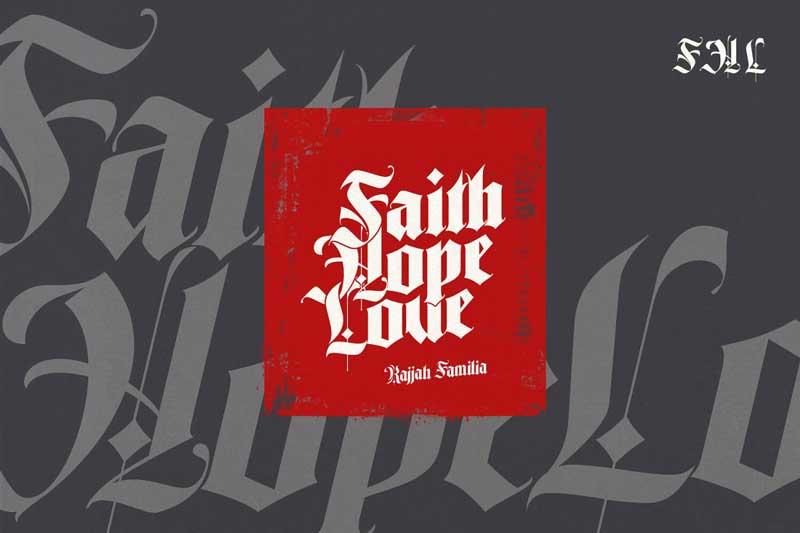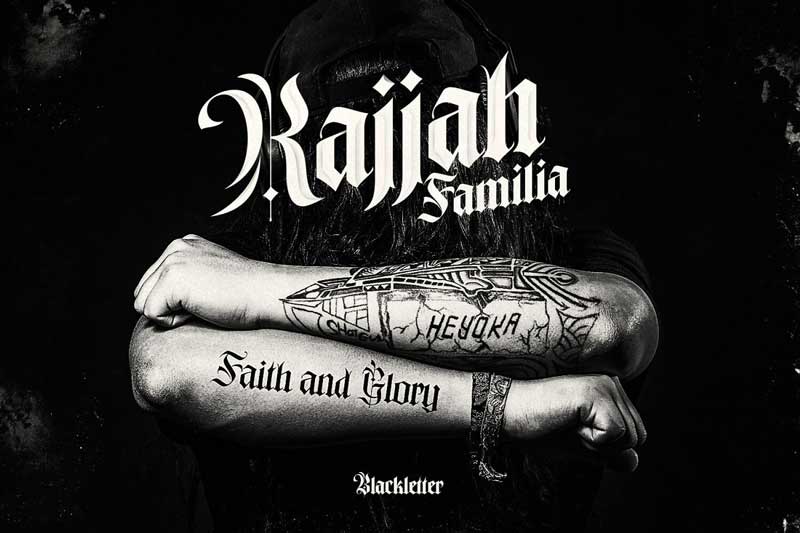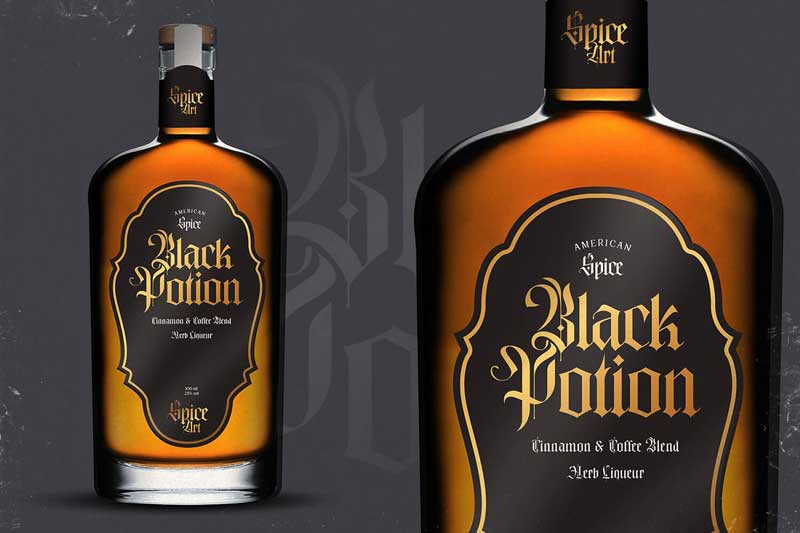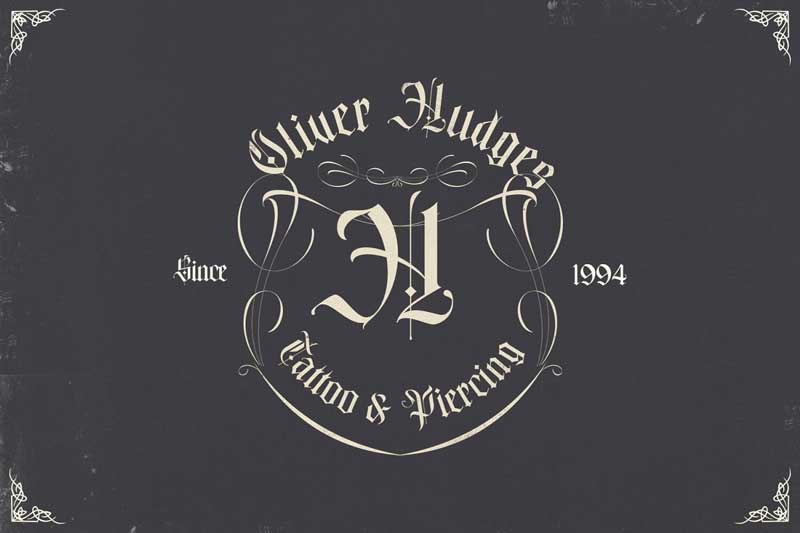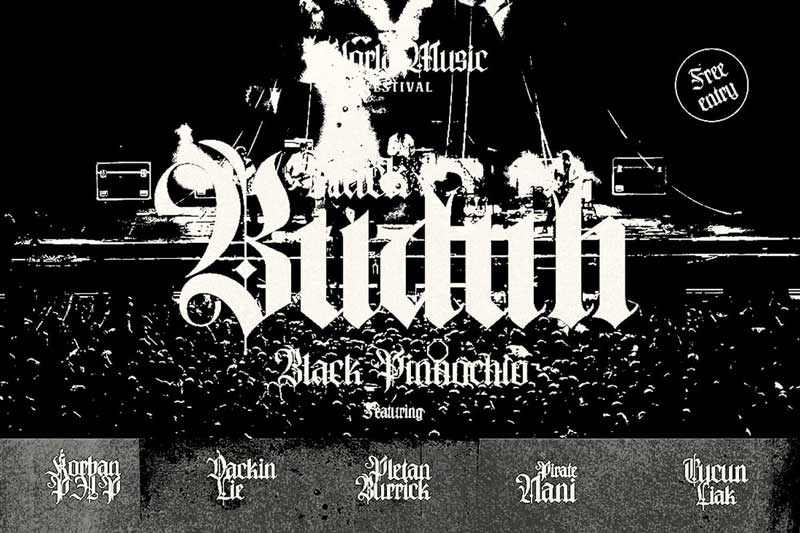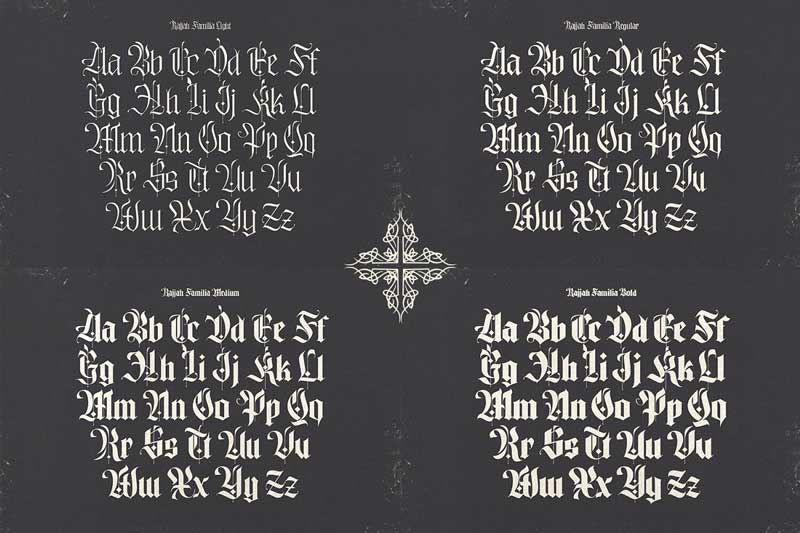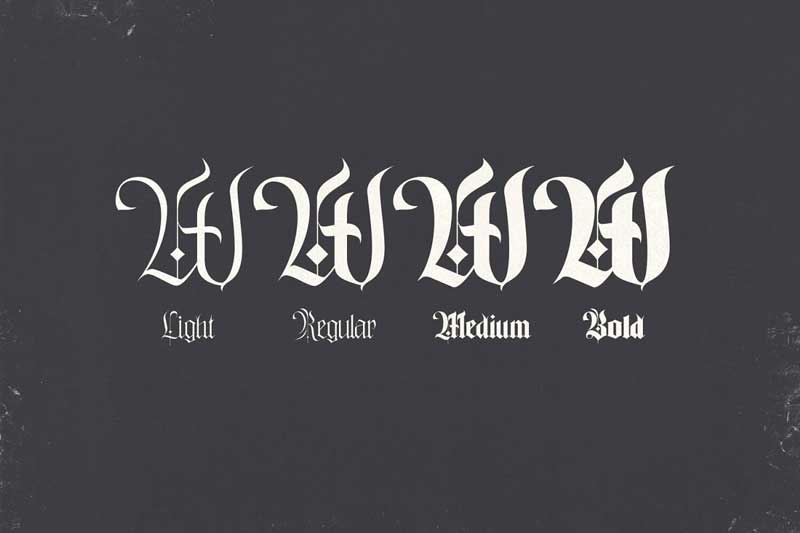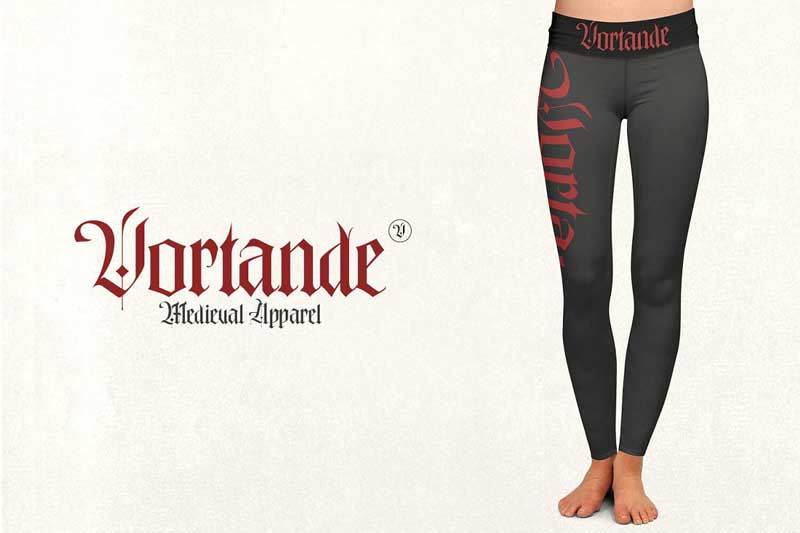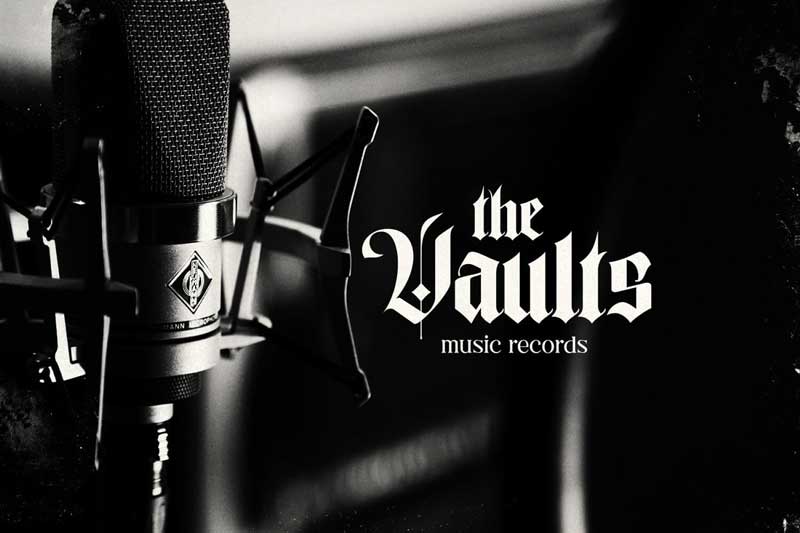
Rajjah Familia Font
Rajjah Familia – Blackletter font family
Blackletter (sometimes black letter), also known as Gothic script, Gothic minuscule, or Textura, was a script used throughout Western Europe from approximately 1150 until the 17th century.
blackletter is currently widely used in modern creative design trends ranging from tattoo lettering, calligraphy, clothing brands, music, sports, labels and much more.
Rajjah Familia looks gothic but easy to read, neat and beautiful.
Comes with light, regular, medium and bold version, Rajjah Familia is the right choice for your next projects!